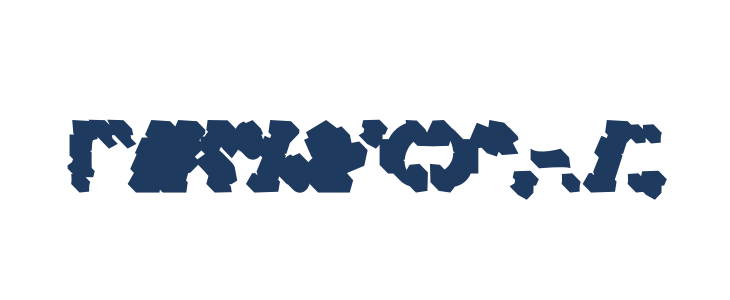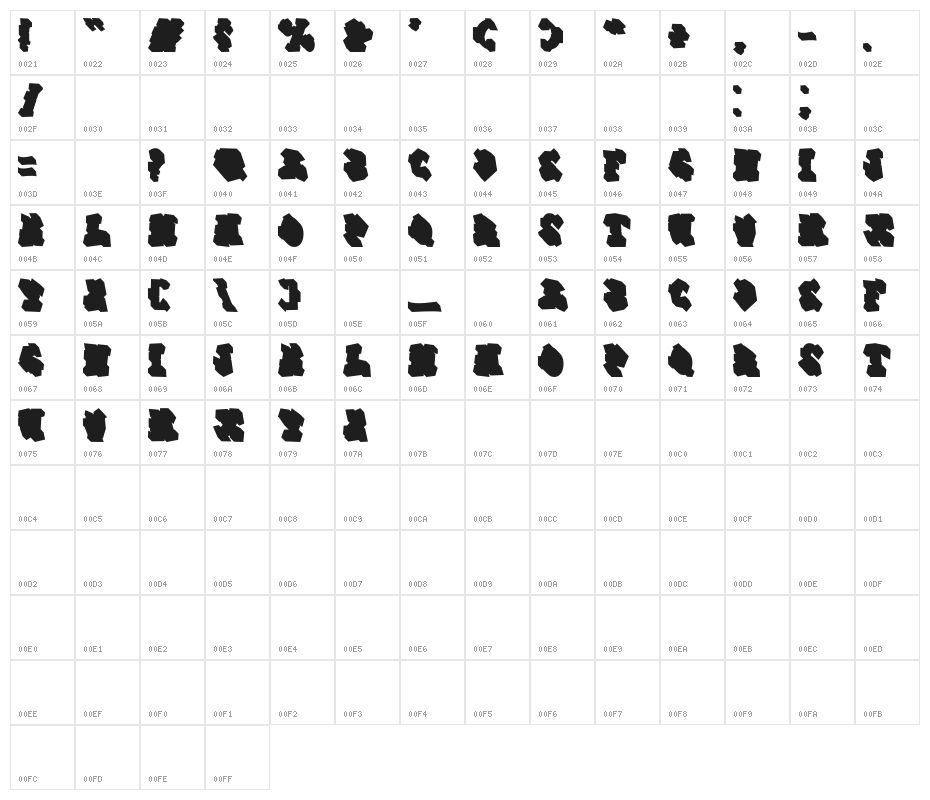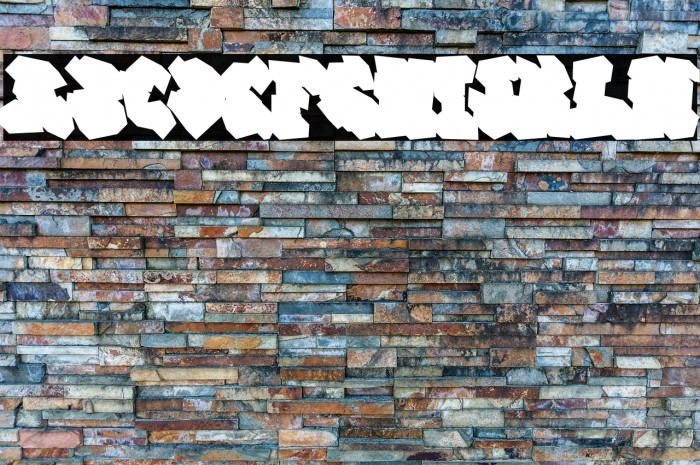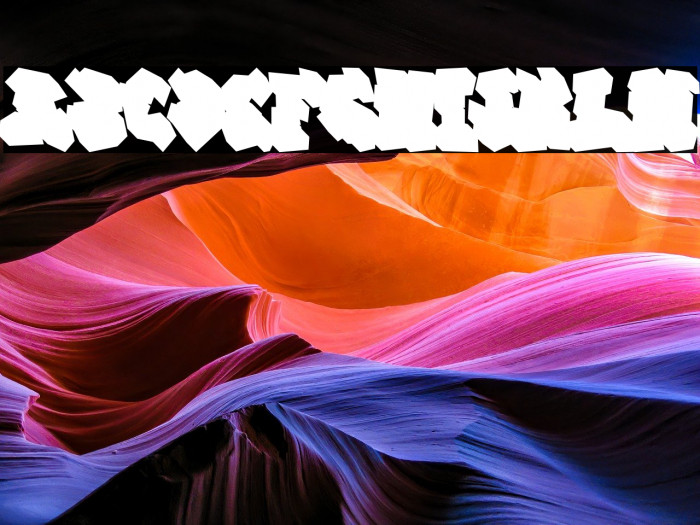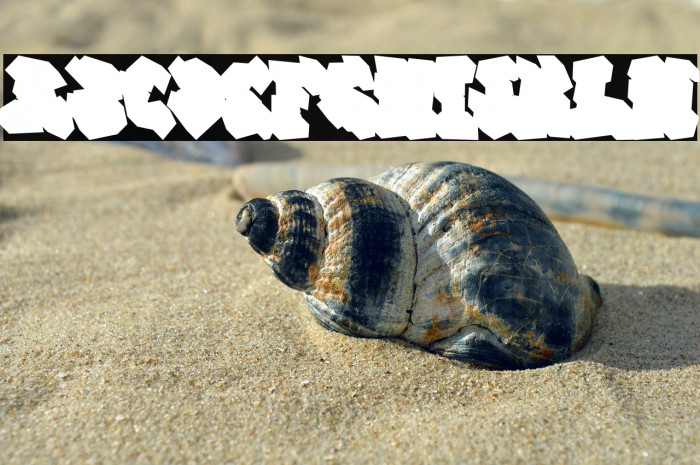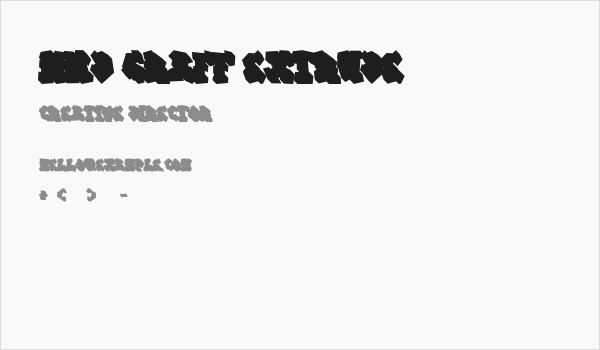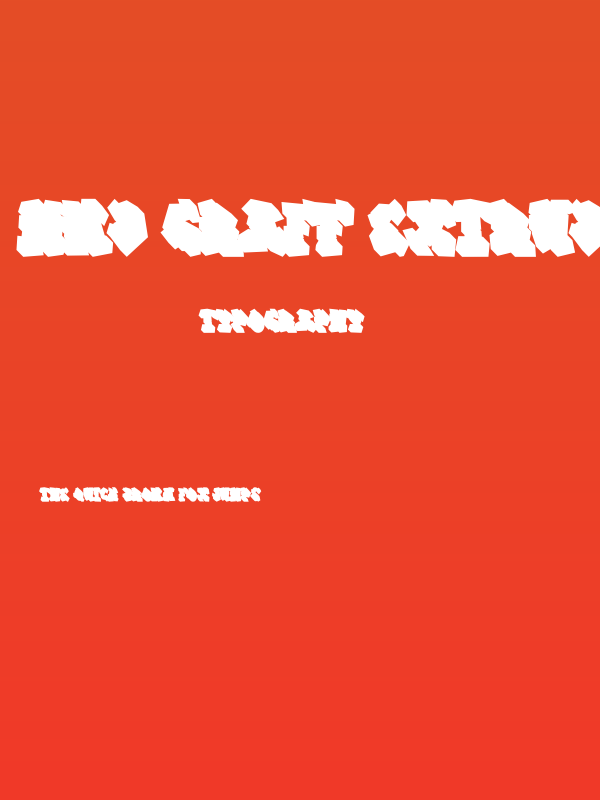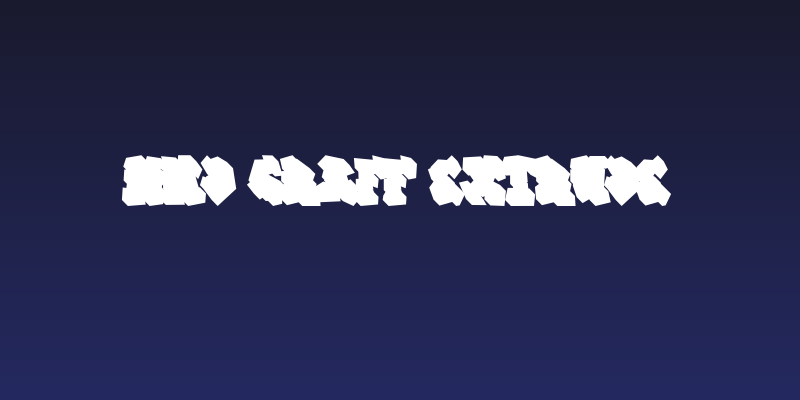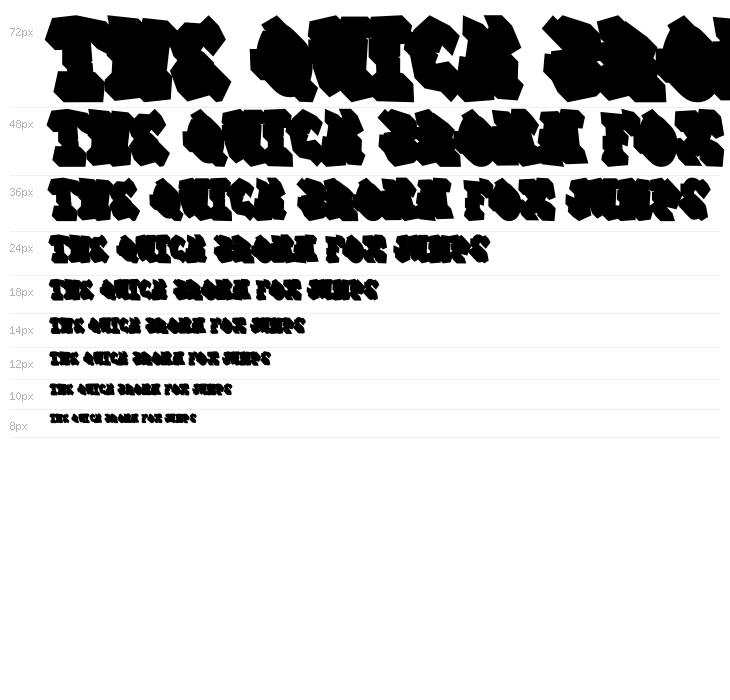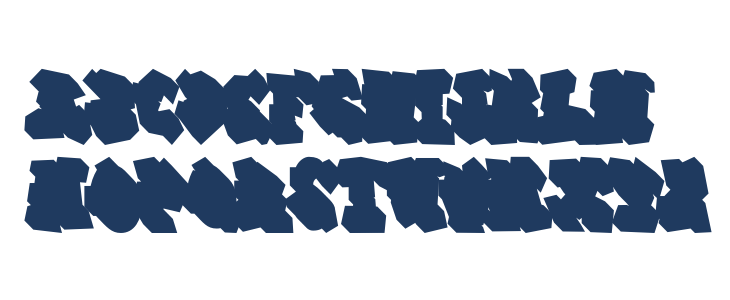
Mwd Graff Extrude Font
Mwd Graff Extrude Description
This font features a bold, graffiti-inspired style with an extruded 3D effect, giving it a dynamic and urban appearance. The characters are heavily stylized with sharp angles and irregular shapes, creating a sense of movement and energy. The font's thick strokes and solid forms make it highly visible and impactful, suitable for designs that require a strong visual presence. Its unique aesthetic is reminiscent of street art, making it ideal for projects that aim to capture a rebellious or edgy vibe. The font's playful yet assertive character is perfect for creative and unconventional designs.
| Overall Style | Urban, Graffiti, Bold |
| Proposed Projects | Street art murals, music album covers, urban-themed posters, skateboarding brand logos, graffiti art projects. |